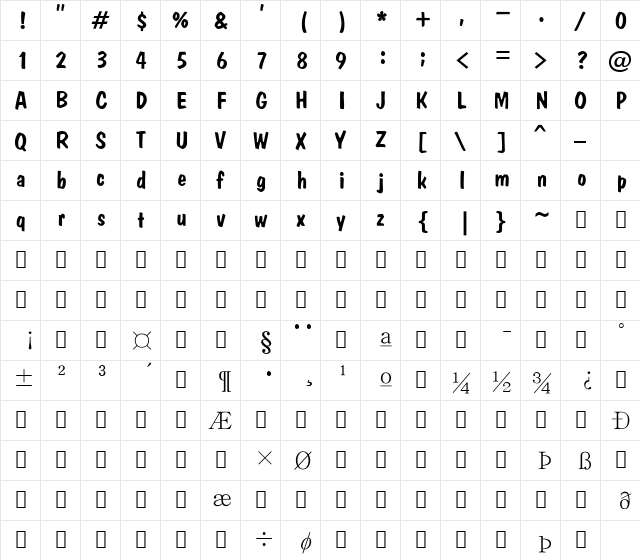
HYBackSong-Bold Regular
Design Context for HYBackSong-Bold Typeface
HYBackSong-Bold takes a measured approach to typography — its balanced proportions and neutral character make it a reliable workhorse for both digital and print work. The heavy weight commands attention and anchors typographic hierarchies.